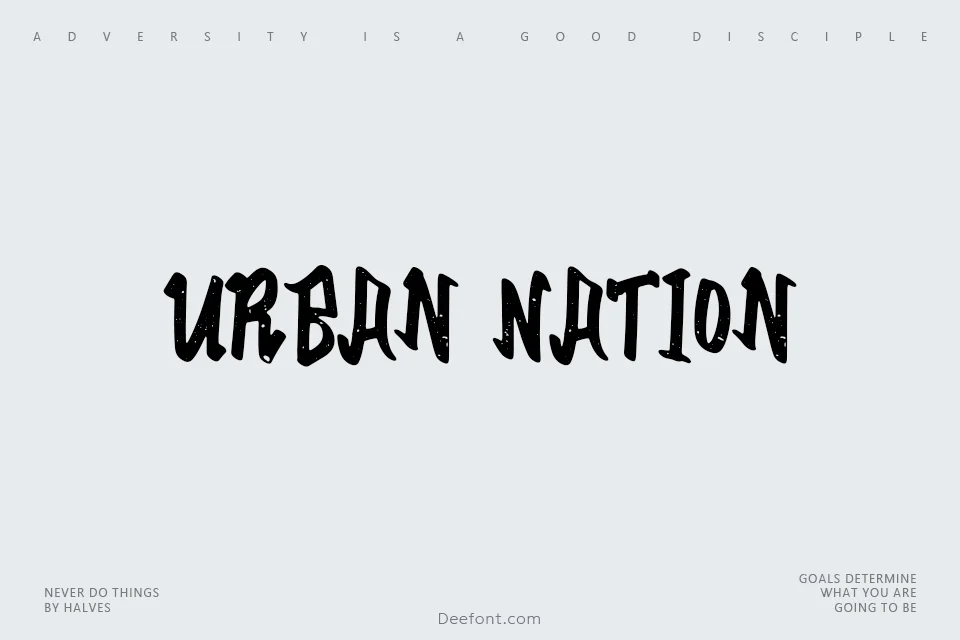
Urban Nation Font
Urban Nation is a dynamic graffiti-inspired script font designed by Lettersiro Studio. With its bold, expressive letterforms and urban aesthetic, it perfectly captures the energy of street art while maintaining readability for creative projects. The font’s distinctive character makes it ideal for posters, album covers, branding, and eye-catching display applications that demand a contemporary edge and artistic flair.